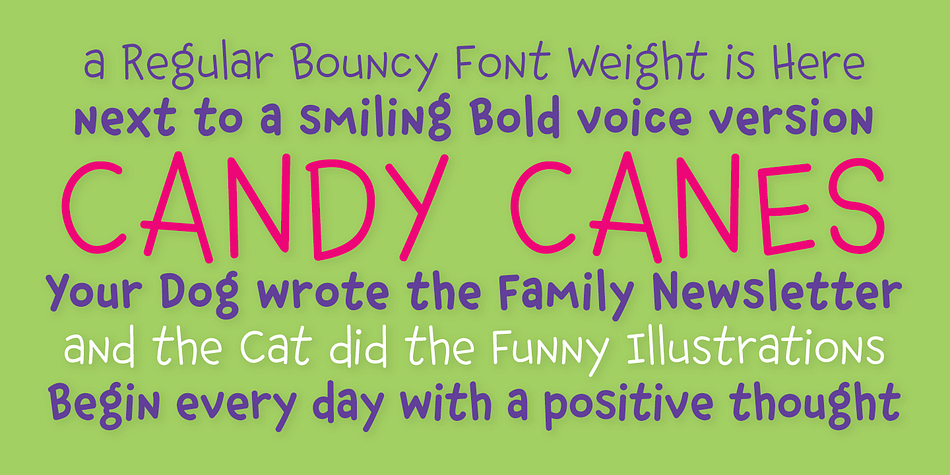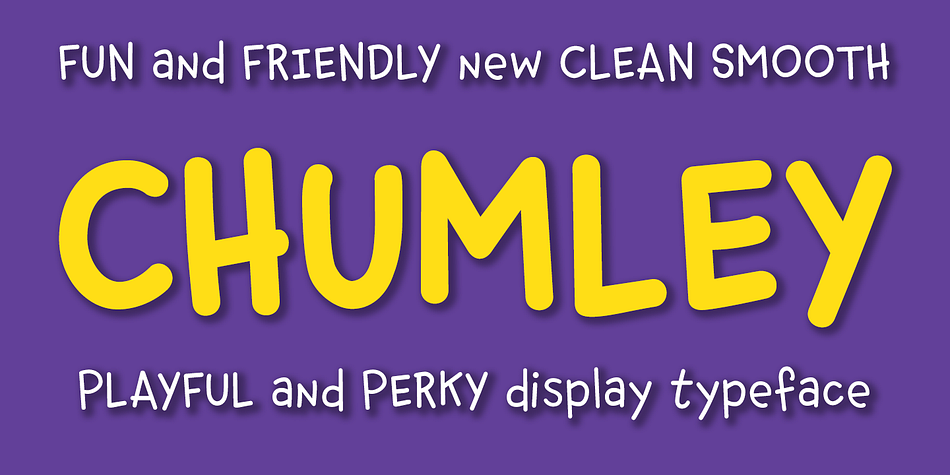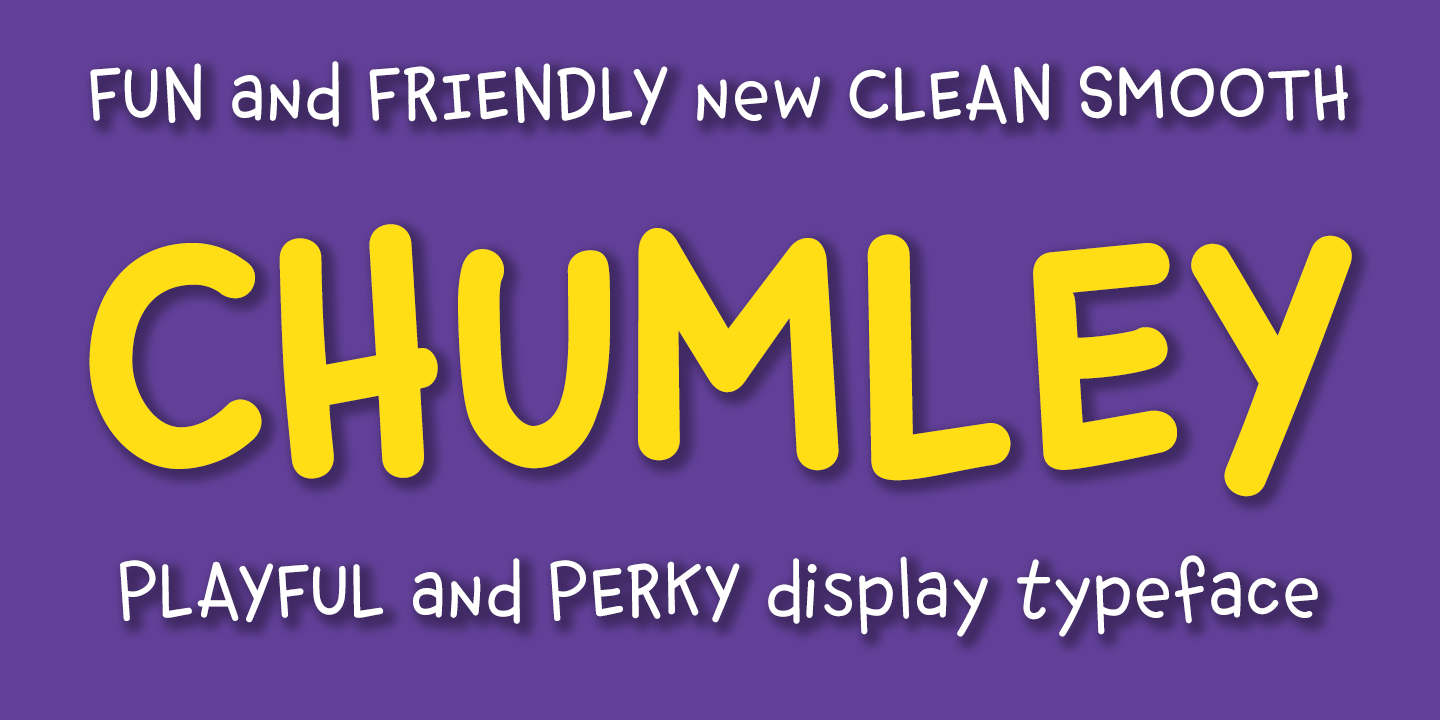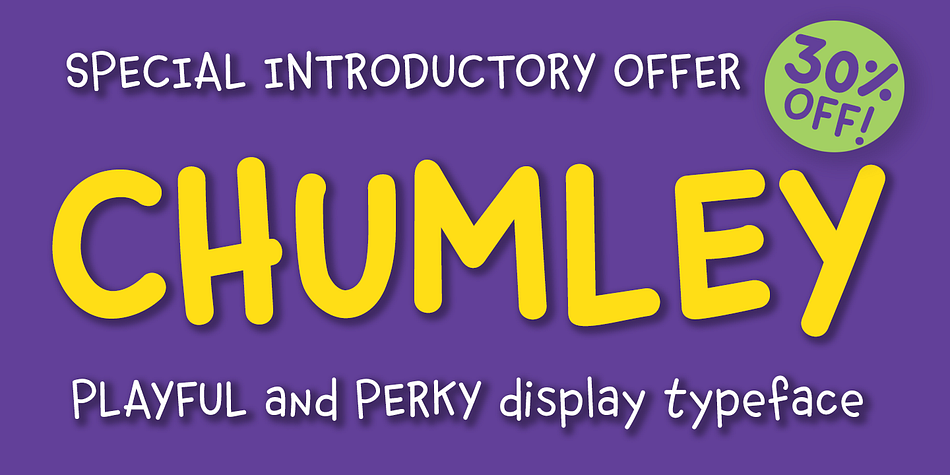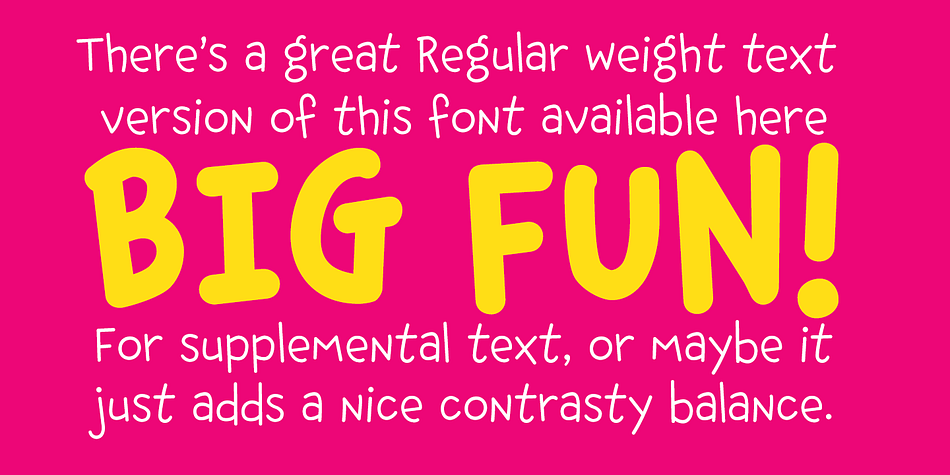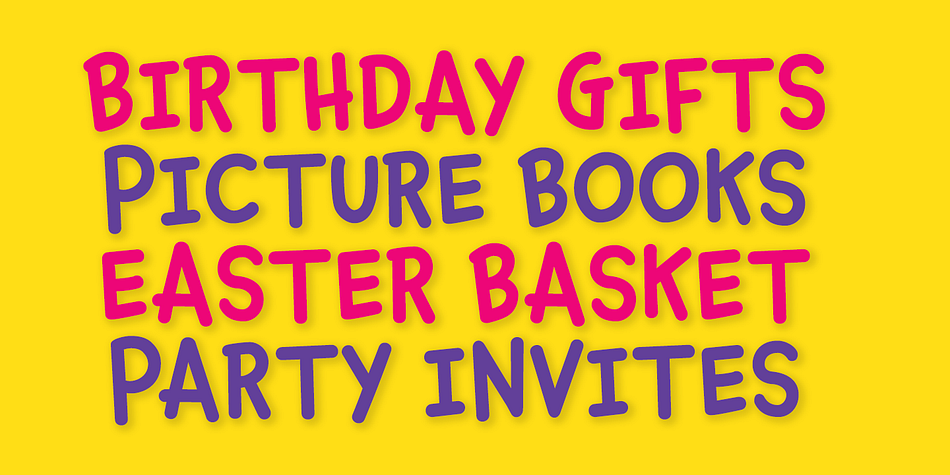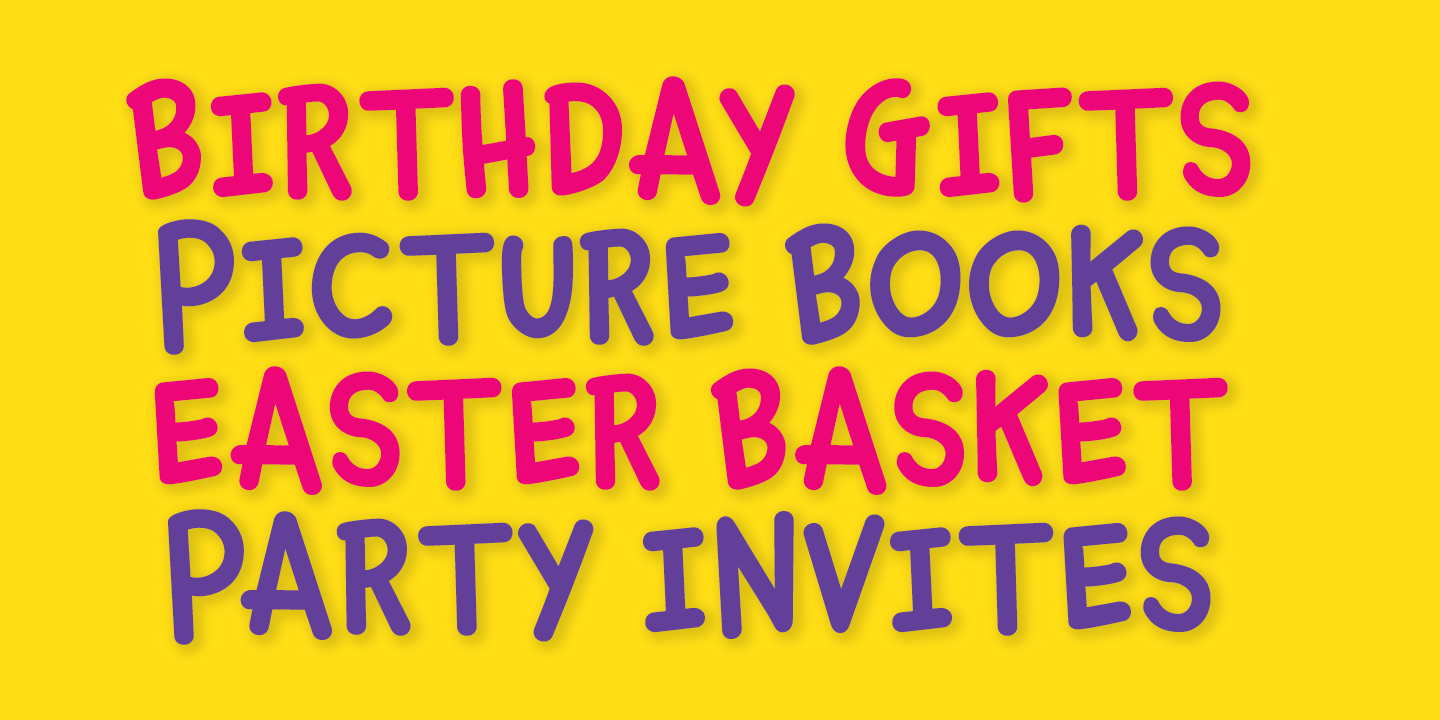
Chumley
Designed by Chank Diesel, Chumley is a hand drawn font family. This typeface has five styles and was published by Chank Fonts.
Chumley is a big smooth friendly fellow, perfect for birthday party invites or kids picture books or ice cream or cereal or anything that’s child-like and fun. This fun font comes in five weights for all your funtime needs from nice light Skinny to the extra-chonky Fatty, with pleasant Regular, Medium and Bold in between. It’s got a holiday vacation flair, with bubbly light-hearted charm. Originally released in 2002, this font has been recently remixed and remastered to add legibility and work better for the modern designer, and also has had three new weights added.